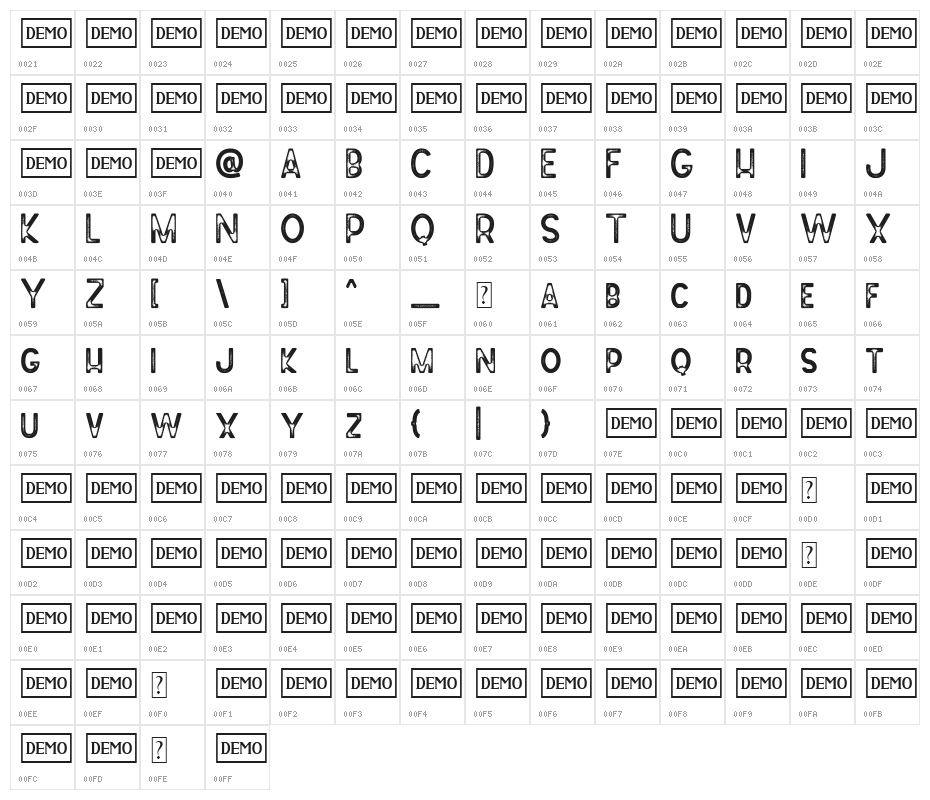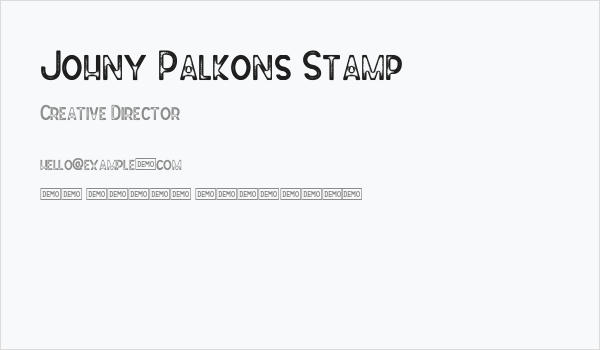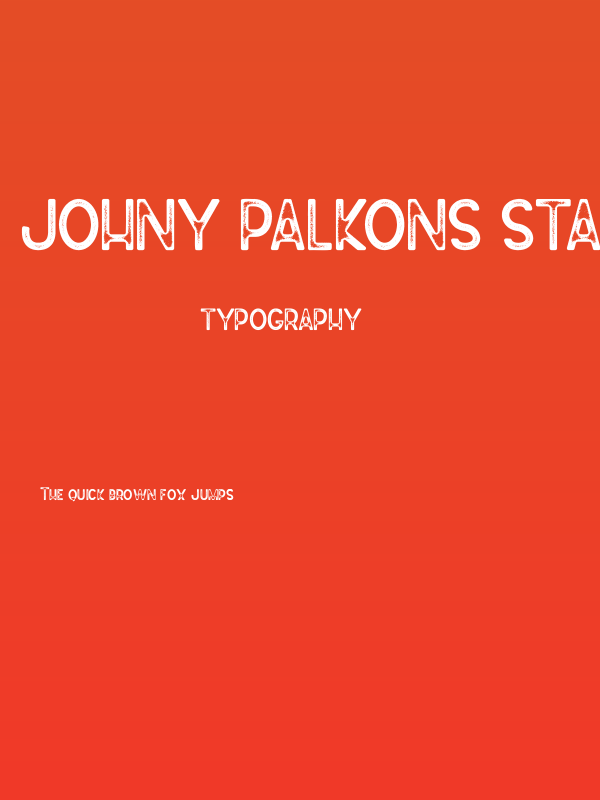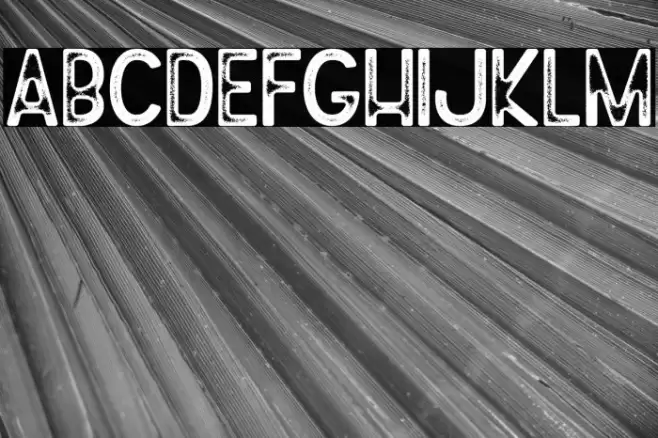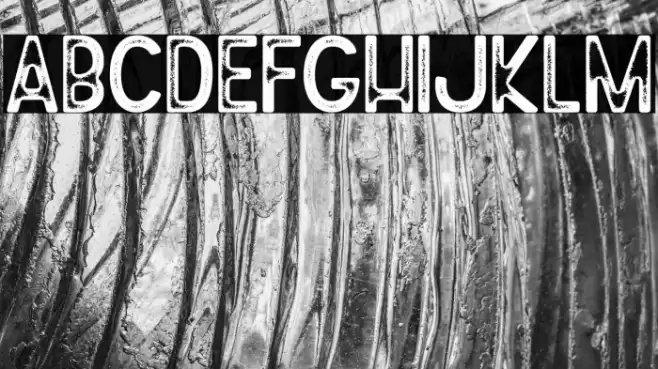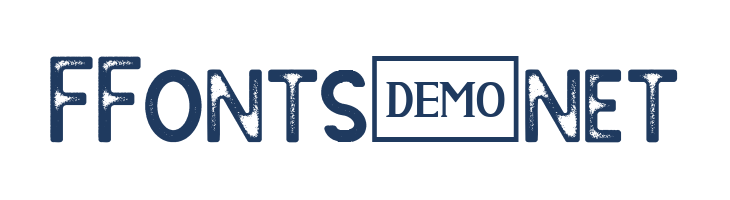
Johny Palkons Stamp Font
This font features a bold, distressed style that mimics the appearance of a vintage rubber stamp. The characters are uppercase with a slightly rough texture, giving them a worn and rugged look. The edges are uneven, adding to the authentic stamp effect. The font's boldness ensures high visibility, making it suitable for impactful designs. Its unique style is perfect for projects that require a retro or industrial feel. The spacing between characters is consistent, allowing for easy readability despite the distressed appearance.
| Proposed Projects | Ideal for branding, posters, packaging, and any design requiring a vintage or industrial aesthetic. |